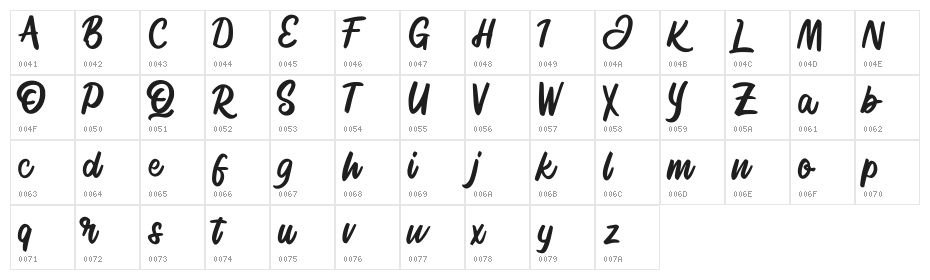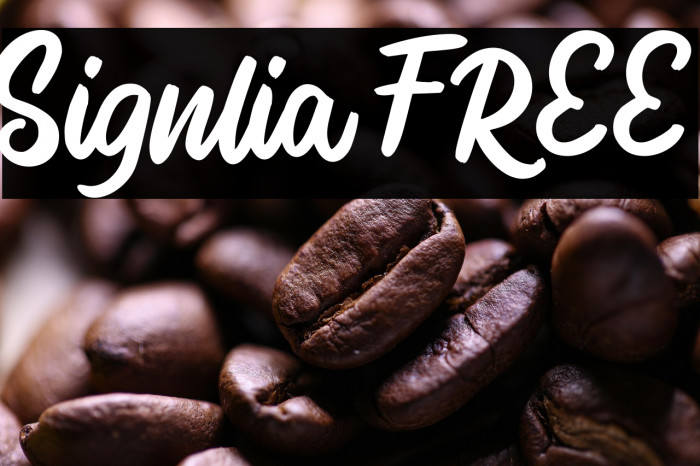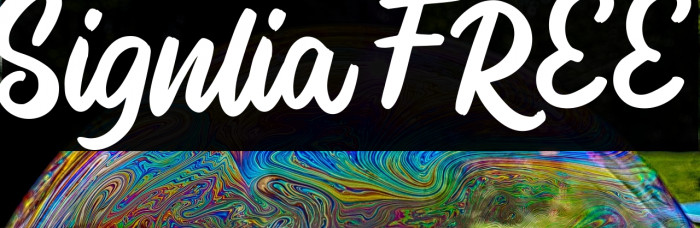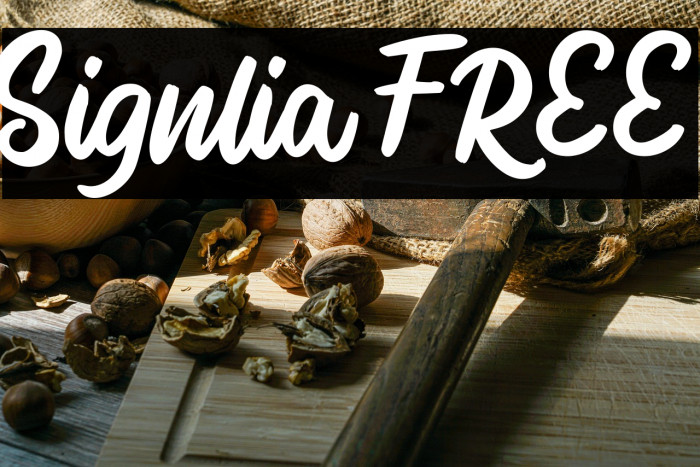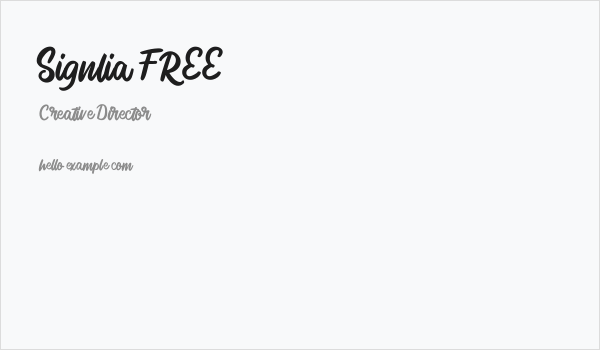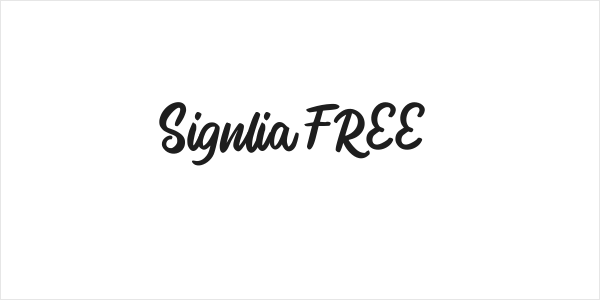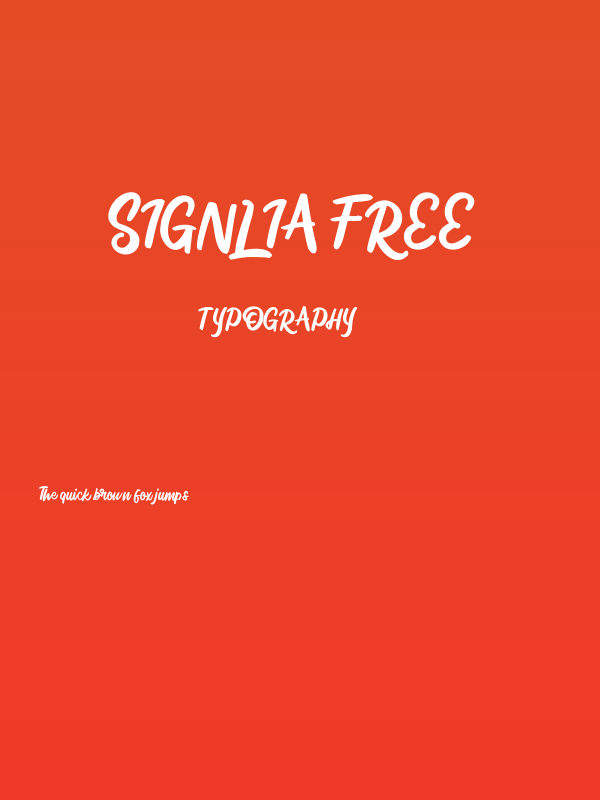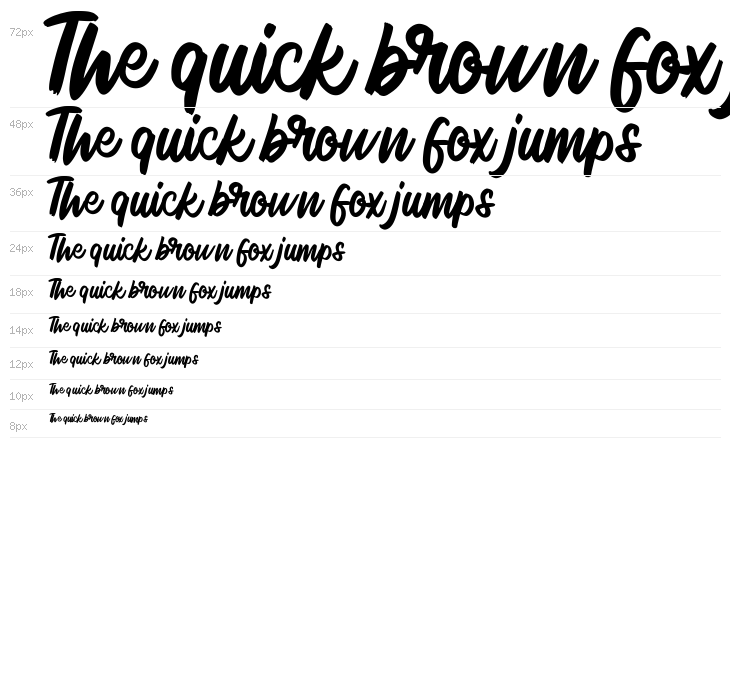
Signlia FREE Font
Signlia FREE Description
This font features a bold, cursive style with a modern flair. The letters are interconnected, creating a fluid and dynamic appearance. The uppercase characters maintain a consistent height, while the lowercase letters exhibit a playful bounce, adding to the font's lively character. The strokes are thick and uniform, providing a strong visual impact. This font is ideal for creating eye-catching designs that require a touch of elegance and energy. The special characters are seamlessly integrated, maintaining the overall style and enhancing the font's versatility.